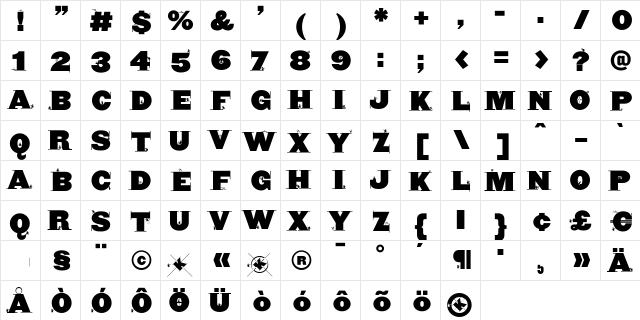
CyclopsBlax4Dirk Regular
Design Context for CyclopsBlax4Dirk Typeface
CyclopsBlax4Dirk takes a measured approach to typography — its balanced proportions and neutral character make it a reliable workhorse for both digital and print work.